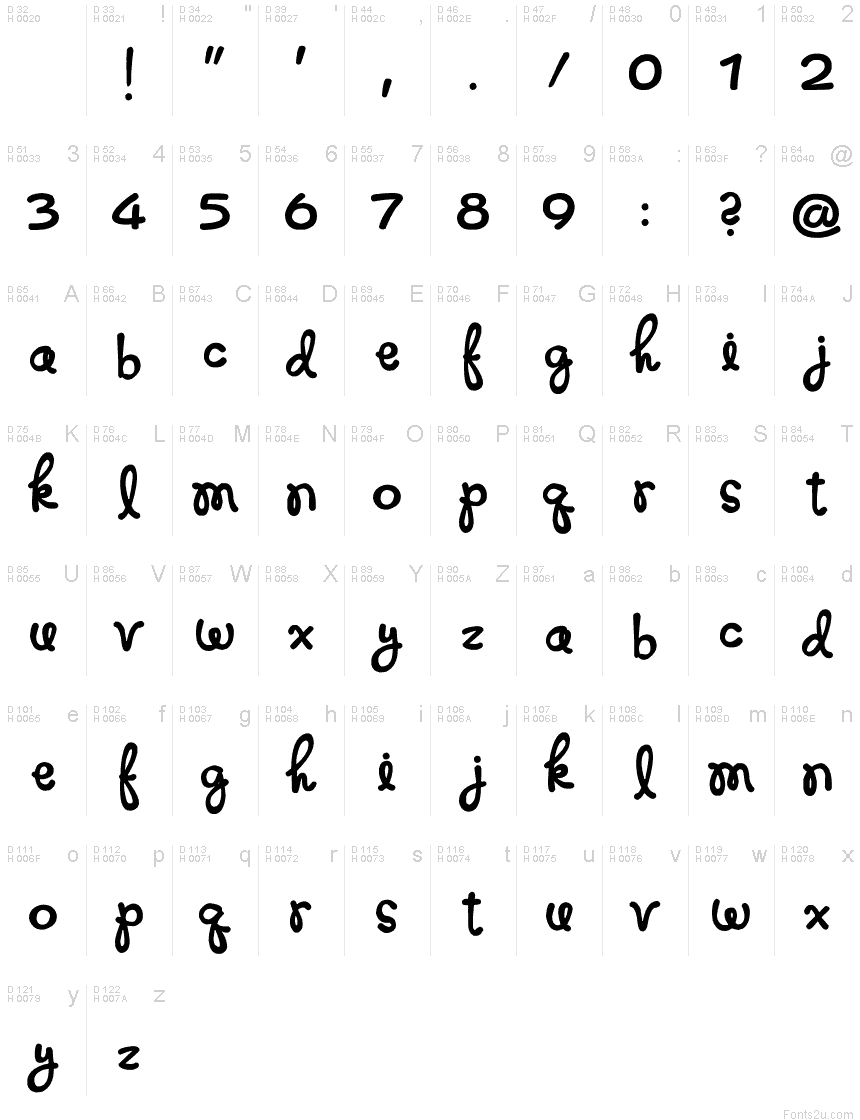
Mr and Mrs Popsicle from Kevin and Amanda is a free handwritten font with plump, looping letters and an easygoing scrawl. Its rounded strokes shift in width, and the oversized loops and uneven heights give each word a lively, handmade silhouette.
On food packaging, it can turn a product name into a friendly hand-drawn label for sweets and snacks. It also suits cafe menus, party invitations, and children's activity books. In those settings, the lettering can become part of an illustrated sign or playful emblem instead of serving as neutral text.